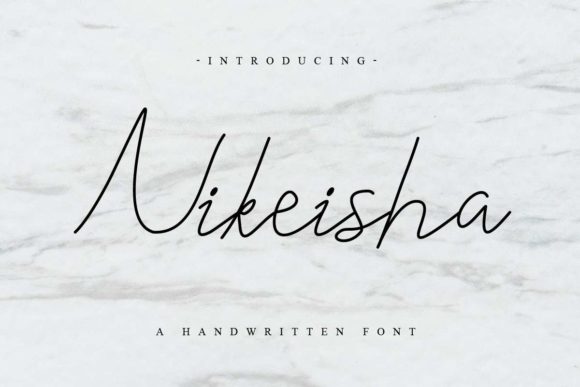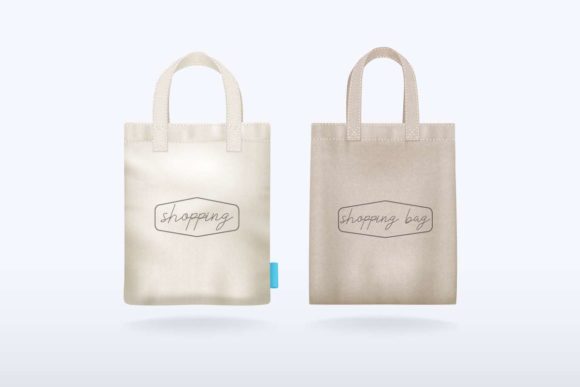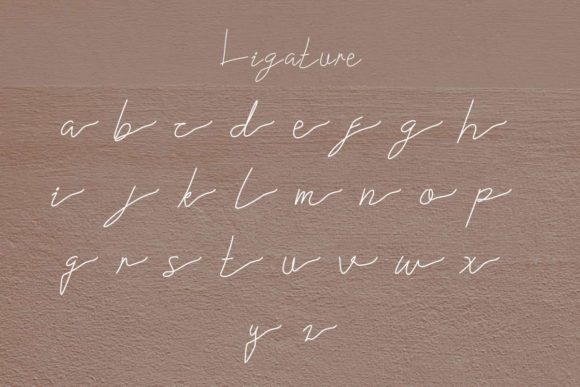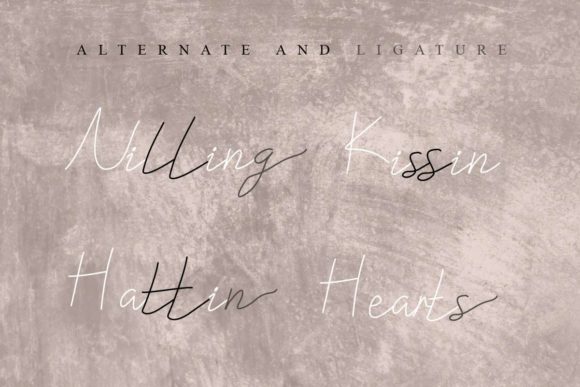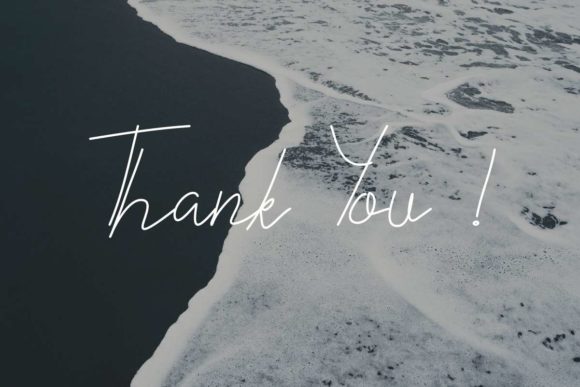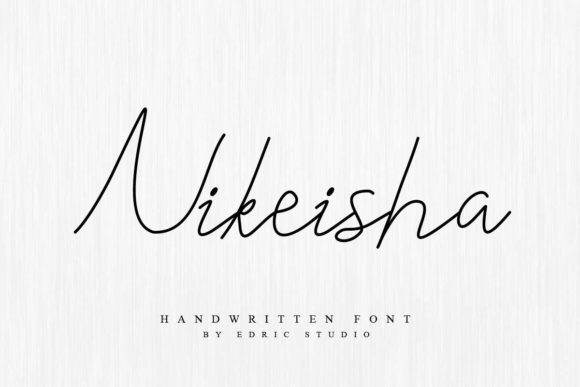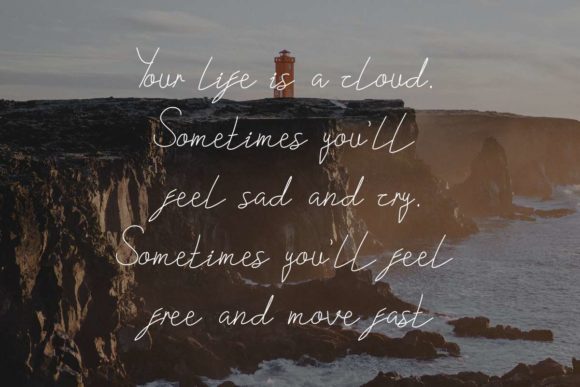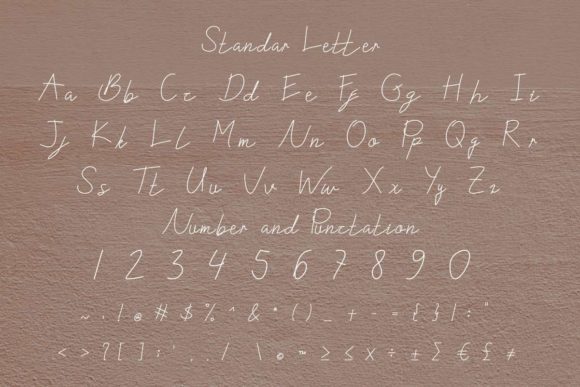
HomeScript FontsNikeisha Font Script Fonts Nikeisha Font FacebookXPinterestWhatsApp Nikeisha Font Poster 2 Nikeisha Font Poster 3 Nikeisha Font Poster 4 Nikeisha Font Poster 5 Nikeisha Font Poster 6 Nikeisha Font Poster 7 Nikeisha Font Poster 8 Nikeisha Font Poster 9 Nikeisha Font Poster 10 Nikeisha Font Poster 11 Nikeisha Font Poster 12 Nikeisha Font Poster 13 Nikeisha Font Poster 14 About Nikeisha Font Nikeisha is a bold and playful script full of authenticity. Get inspired by its timeless charm! DOWNLOAD ON CREATIVE FABRICAThis font is sold and delivered by Creative Fabrica. Font Canyon may earn a commission if you buy through this link. People also explored Roommates Script Font Alexander™ Font Cardamom Script Font Vintage Handmade Font Invisible Font Julya Font Quagmire Extended Anggitha Font Stripess Font 399 0 TagsNikeisha Font Previous articleTerecia FontNext articleAylesbury Vale Font LEAVE A REPLY Cancel reply Comment: Please enter your comment! Name:* Please enter your name here Email:* You have entered an incorrect email address! Please enter your email address here Website: Save my name, email, and website in this browser for the next time I comment. Personal Use Free Triangular Curves Personal Use Free Read more about this font Autines Personal Use Free Read more about this font Pasile Personal Use Free Read more about this font Septhine Personal Use Free Read more about this font BLOG Top 7 Google Fonts Alternatives for Faster and Privacy-Friendly Web Design (2025) Top 7 Google Fonts Alternatives for Faster and Privacy-Friendly Web Design (2025) When it comes to web typography, Google Fonts has long been the go-to... Best Fonts for T-Shirt Design – Top 2025 Picks Best Fonts for YouTube Videos: Make Your Thumbnails Stand Out How to Cut Any Font on Cricut: Convert a Font to SVG (Free)